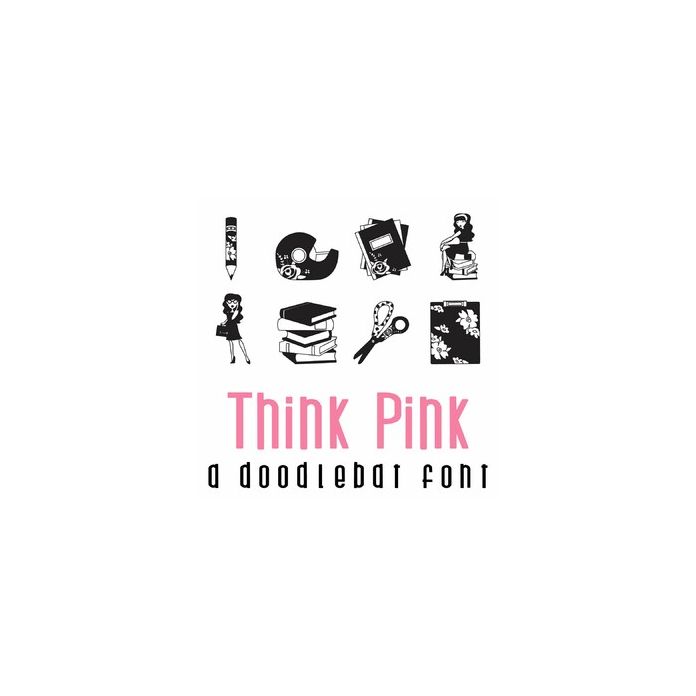
This fun doodlebat font features 26 floral themed school supplies and your favorite girly law school student. Perfect for school, classrooms, decor, crafts, gifts, scrap book pages, cards and more!